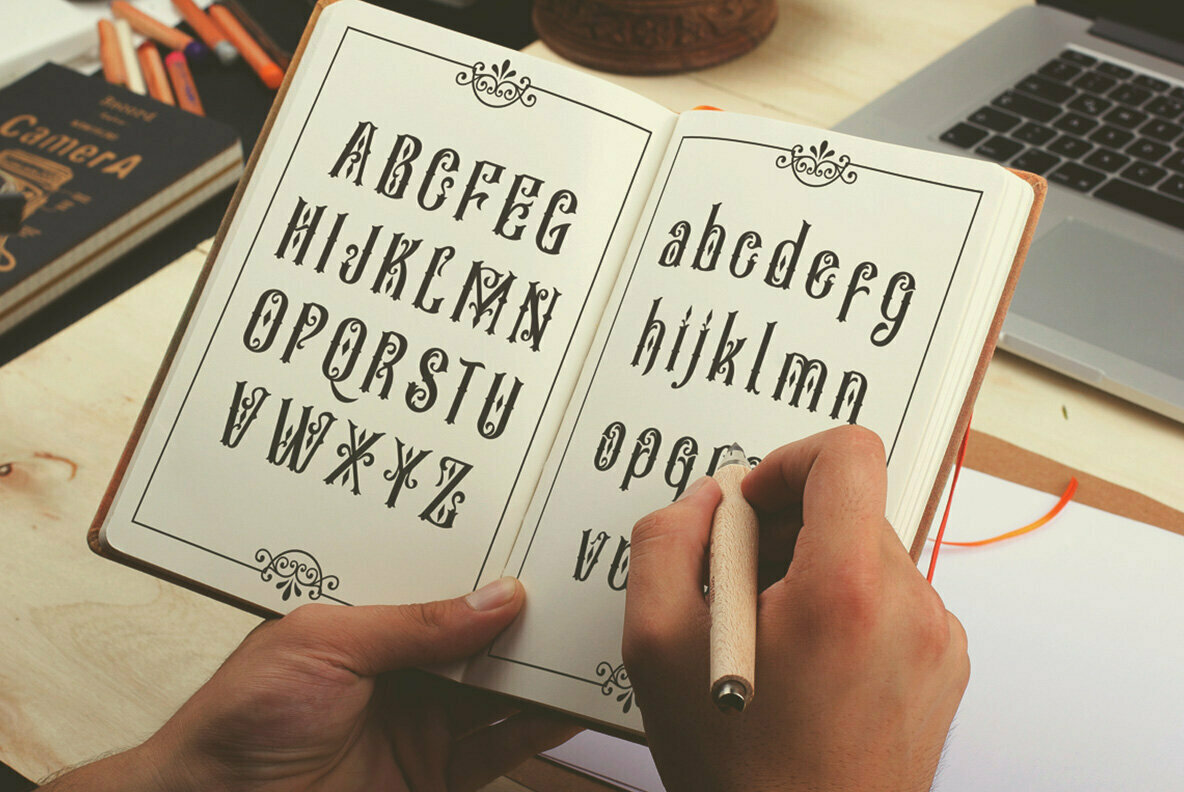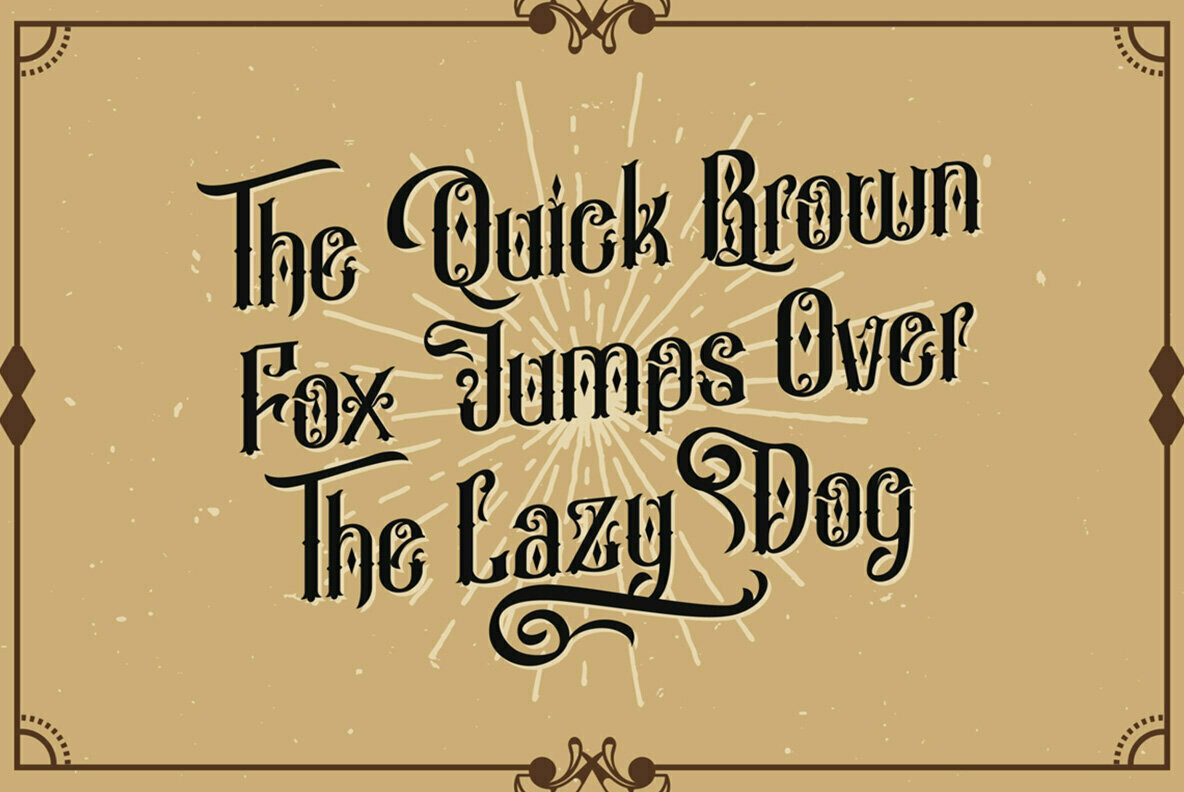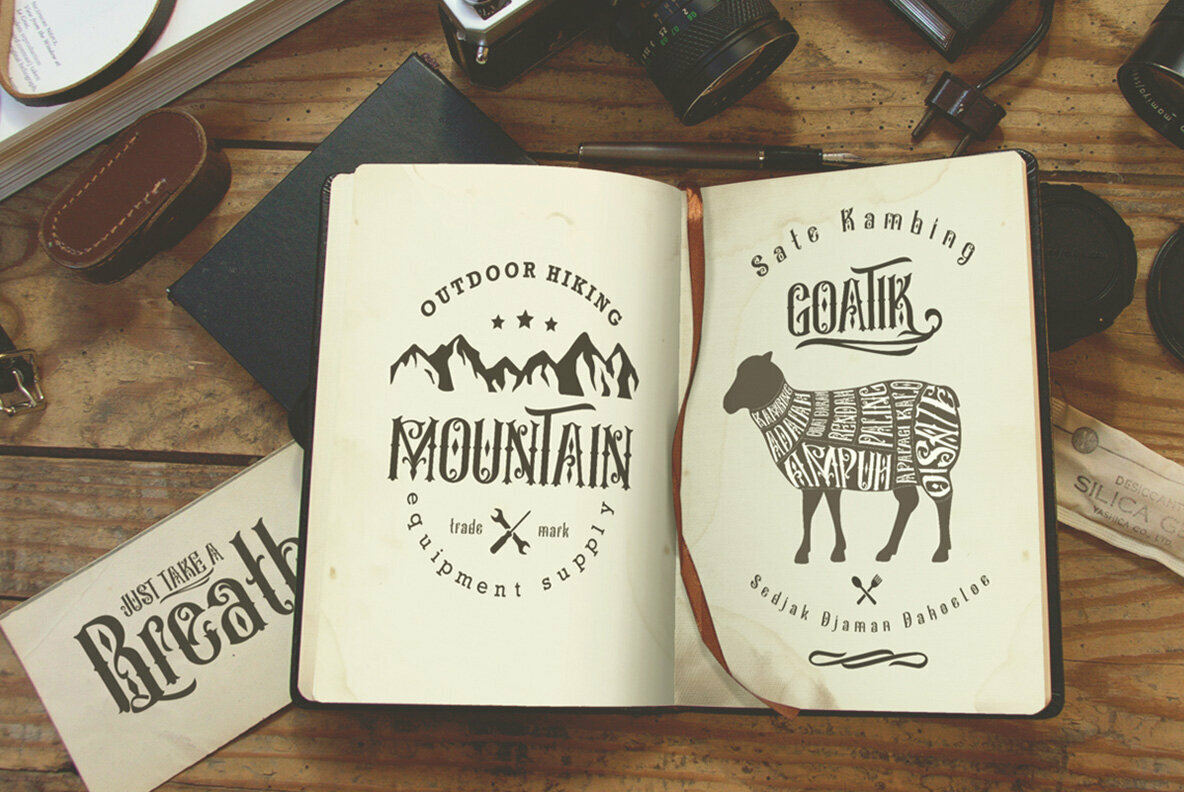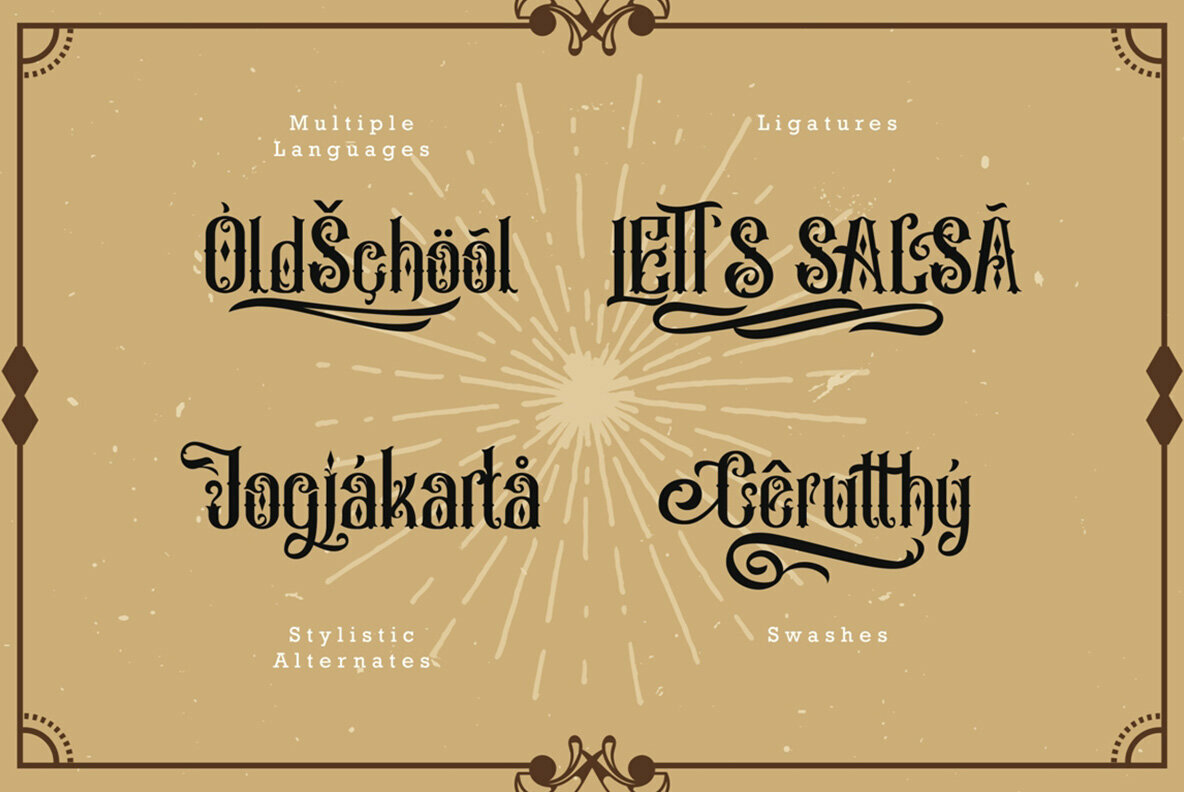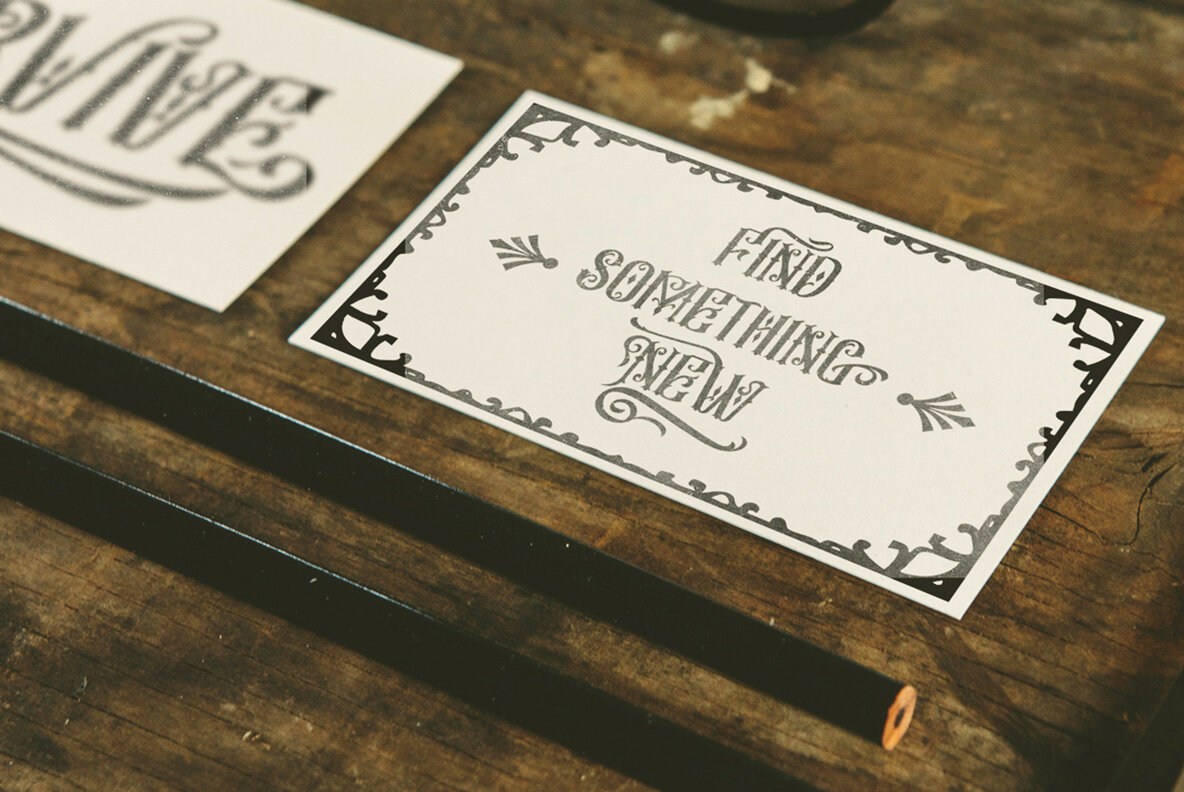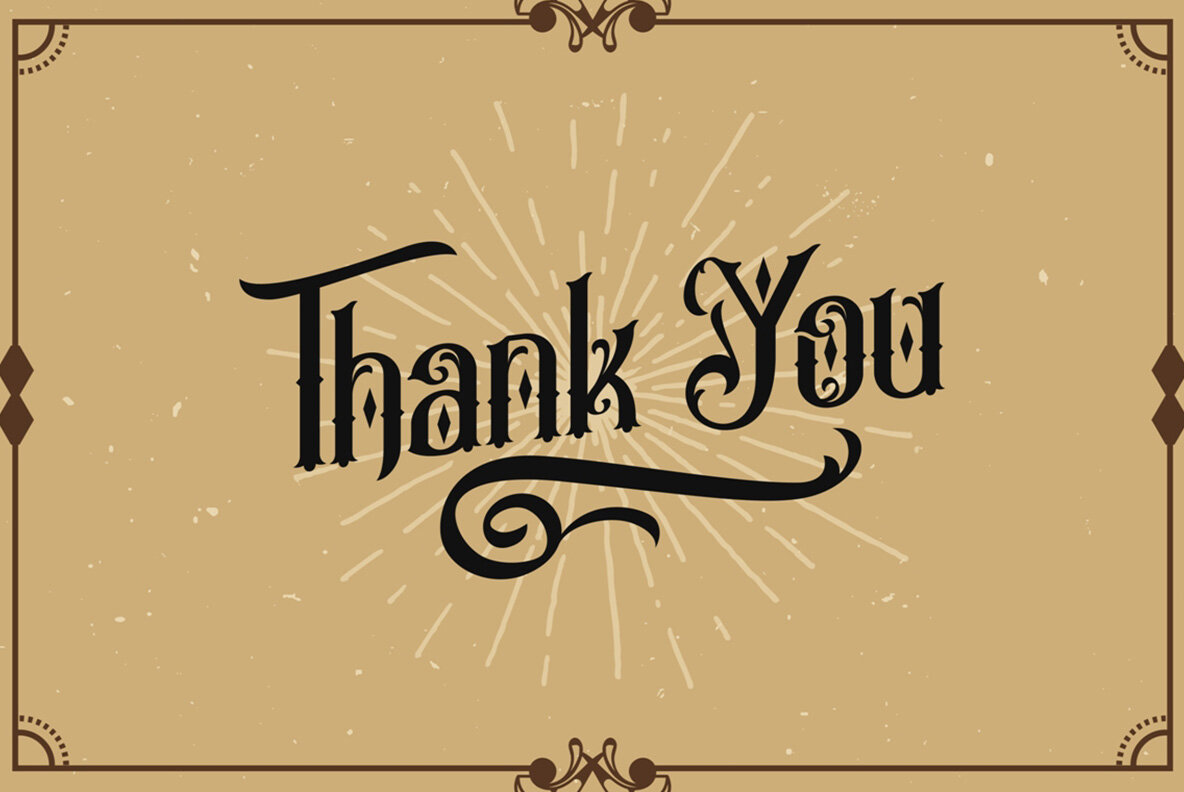
Besigetz Font
Besigetz
Besigetz offers a unique fusion of art nouveau flair and vintage aesthetics, crafted meticulously to enhance headlines and displays. This typeface harmonizes classic serif foundations with modern design sensibilities, making it an ideal choice for projects that embrace a vintage, retro, or old-school theme. Explore the possibilities of pairing Besigetz with modern or minimalist styles, allowing for creative experimentation and innovative design combinations.Besigetz: Ornamental Typeface with Art Nouveau Elegance
Typeface Features